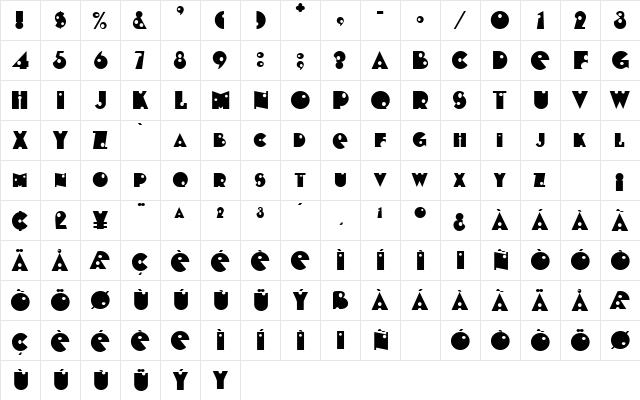
BlasterSCapsSSK Bold
Design Context for BlasterSCapsSSK Typeface
BlasterSCapsSSK is a composed and adaptable typeface that performs quietly and consistently across a wide range of design contexts. The heavy weight commands attention and anchors typographic hierarchies.